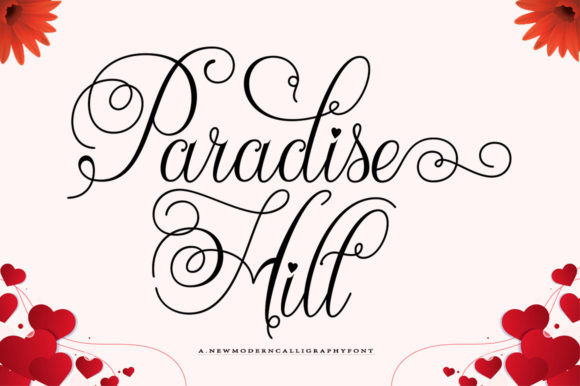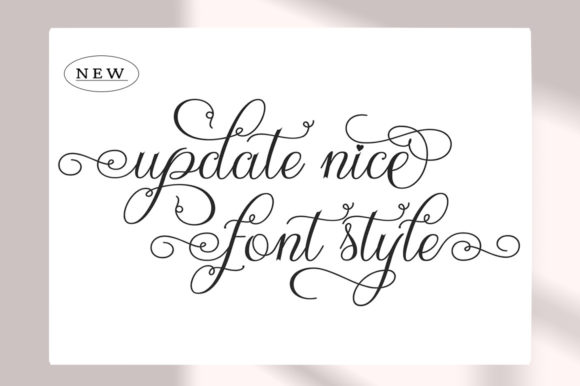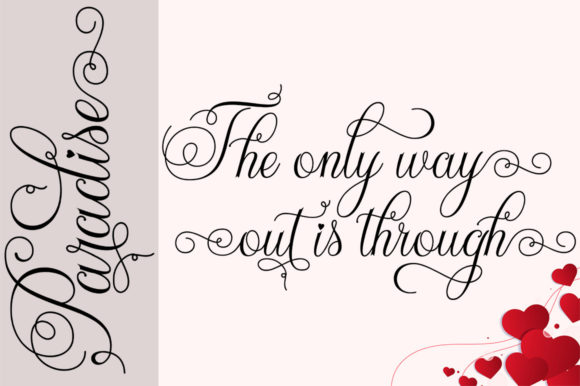
About Paradise Hill Font
Paradise HillĀ is an enchanting handwritten font, masterfully designed to become a true favorite. It maintains its classy calligraphic influences while feeling contemporary and fresh. Paradise Hill is PUA encoded which means you can access all glyphs and swashes with ease!